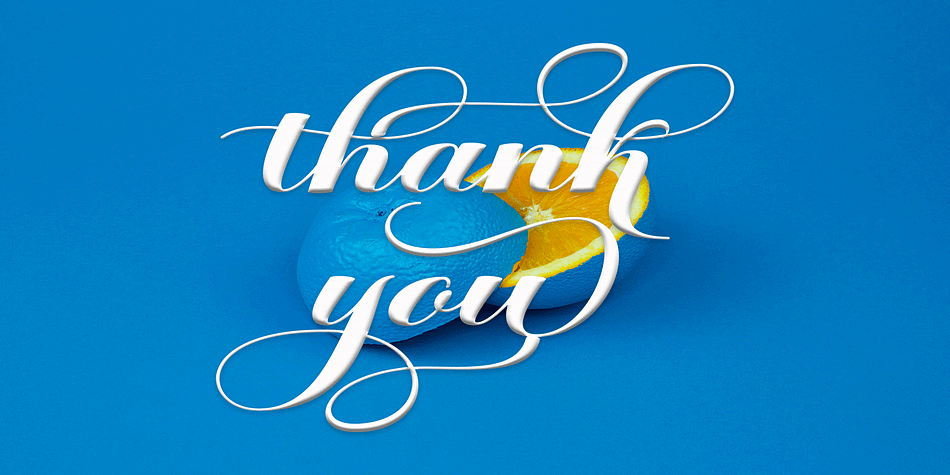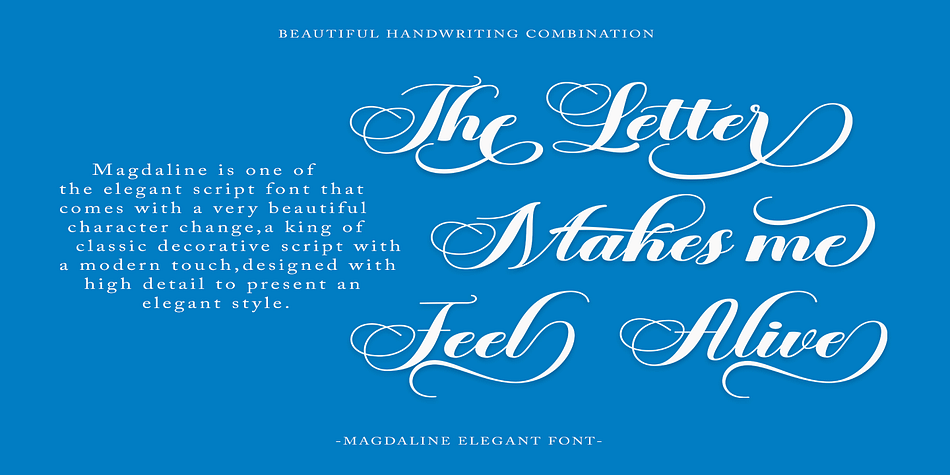
Magdaline
Magdaline is a modern calligraphy and script font family published by HRZ Studio.
Magdaline Script is new quality calligraphy font. High-quality script fonts come with modern and vintage touches in them. Inspired by a mixture of copper calligraphy with handlettering style. OpenType feature with Stylistic Alternatives, Swash, Ligatures, Stylistic sets. It allows you to mix and match letter pairs to fit your design, and also comes with modern ornaments to make this font look elegant and perfect.
Magdaline Script is attractive like a smooth, clean, feminine, sensual, glamorous, simple and very easy to read. The classic style is perfect to be applied in various formal forms such as invitations, labels, menus, logos, fashion, make up, stationery, letterpress, romantic novels, books, greeting / wedding cards, packaging, labels, and more.